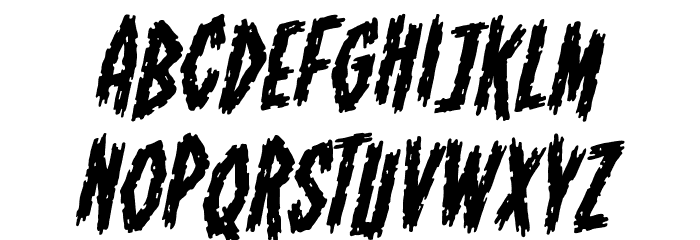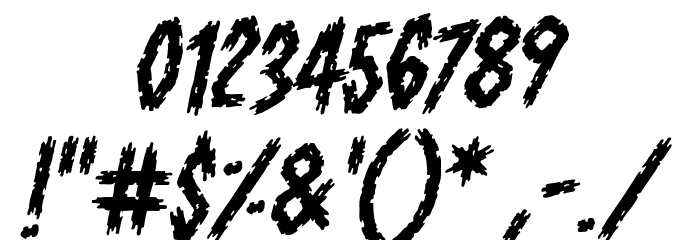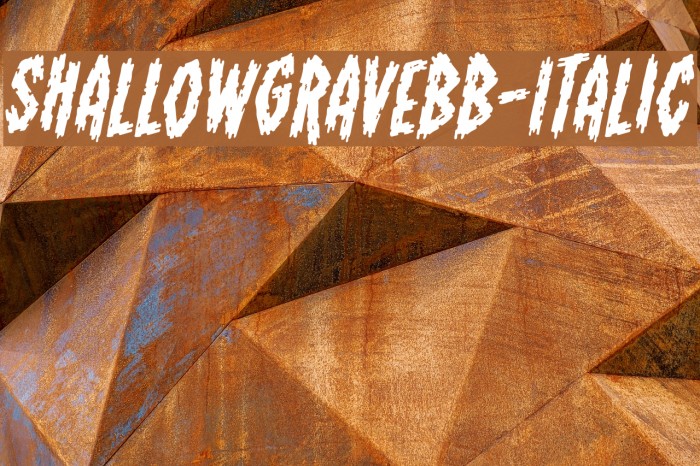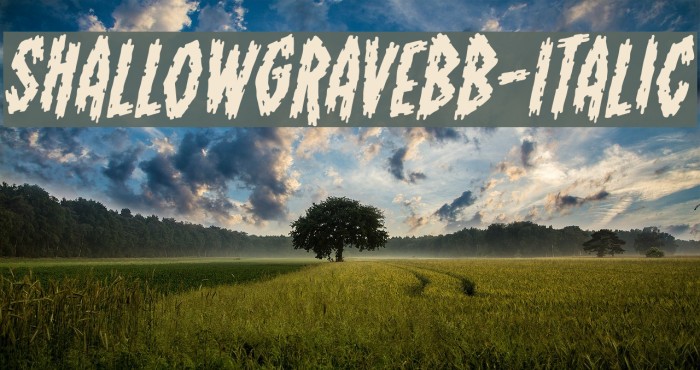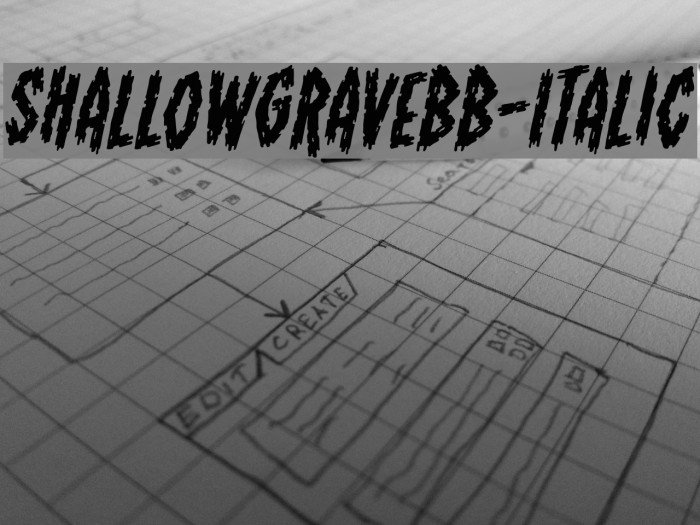
ShallowGraveBB-Italic Font
This font features a bold, jagged style with a distressed appearance, giving it a rugged and edgy feel. The characters are italicized, adding a dynamic and energetic slant to the overall look. The uppercase and lowercase letters maintain a consistent rough texture, resembling torn or shredded paper, which contributes to its unique and eye-catching design. The numbers and special characters follow the same aesthetic, ensuring a cohesive appearance across all elements. This font is particularly suitable for projects that require a dramatic and impactful visual statement.
A bold, jagged, and distressed italic font with a rugged, edgy style.
- Proposed Projects: Ideal for horror-themed posters, album covers, video game titles, and Halloween event promotions.